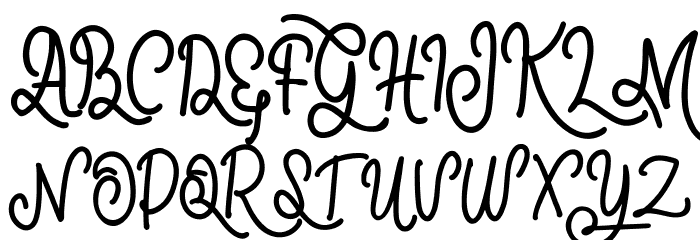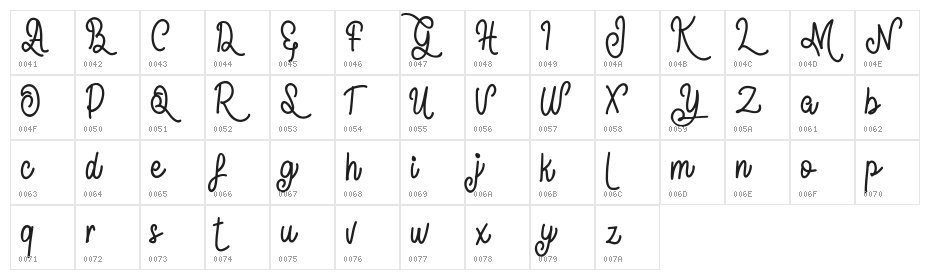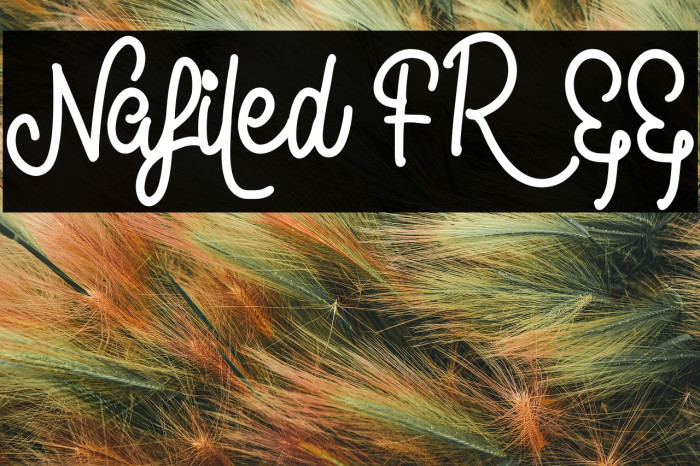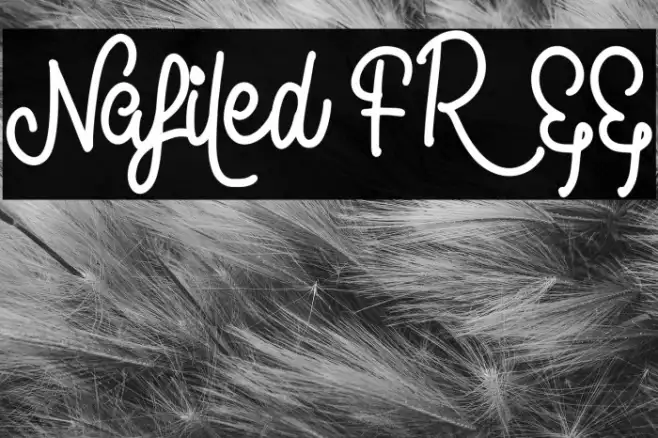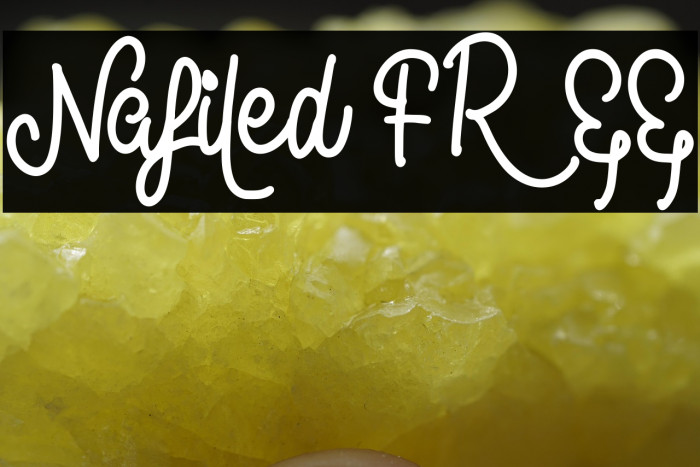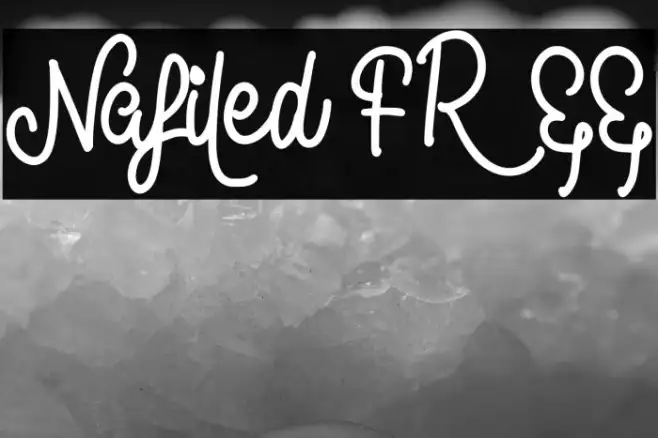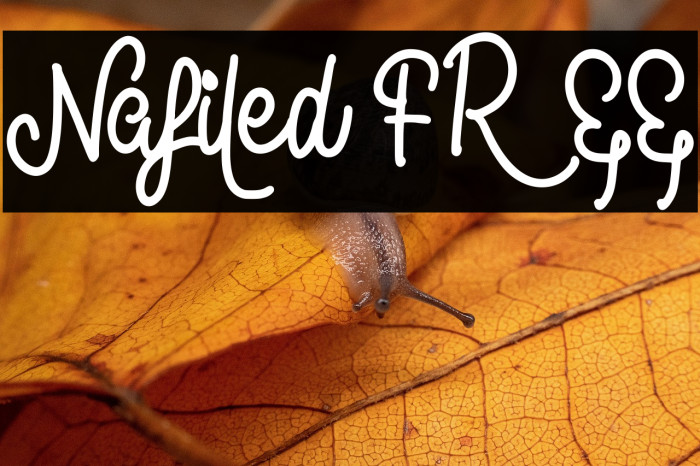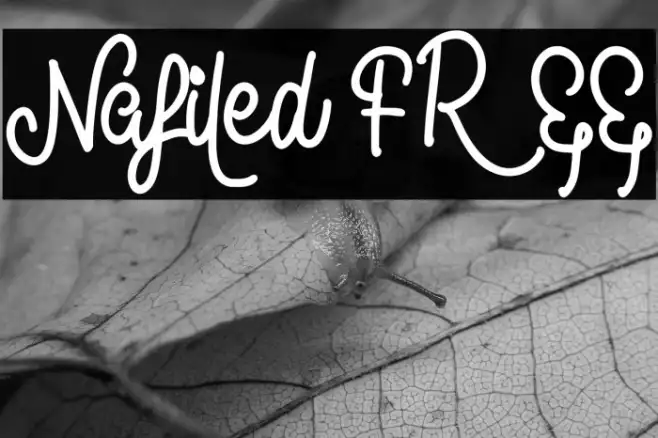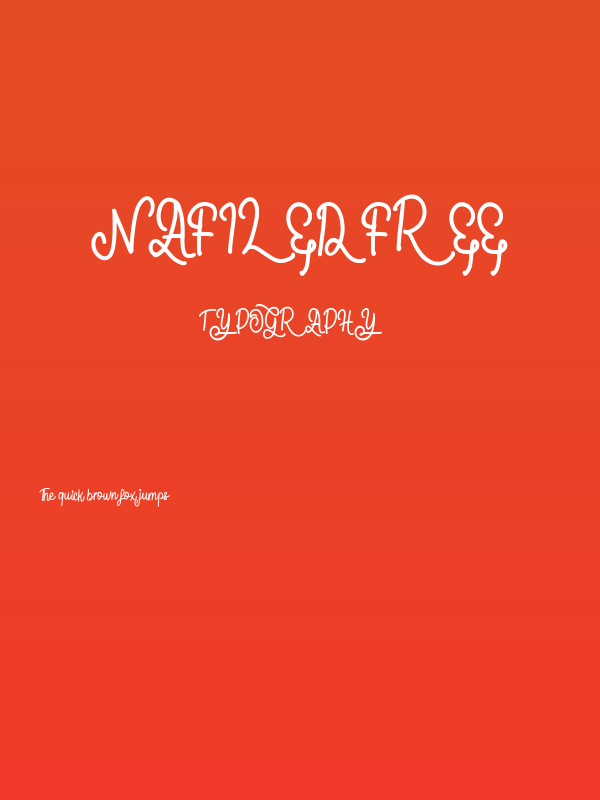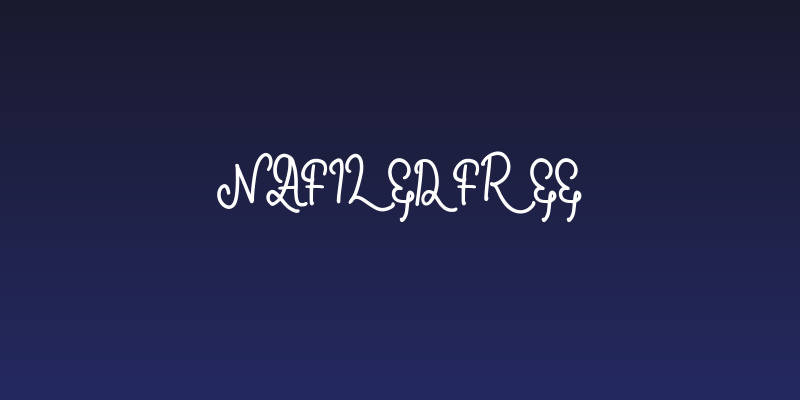
Nafiled FREE Font
Nafiled FREE Description
This font features a playful and whimsical script style with a hand-drawn appearance. The letters are interconnected with flowing curves and loops, giving it a lively and dynamic feel. The uppercase and lowercase characters maintain a consistent style, with the uppercase letters being slightly more ornate. The font has a casual and friendly vibe, making it suitable for creative and informal projects. Its unique character shapes and decorative elements make it stand out, while still being legible. The overall design is cohesive, with a balance between the bold strokes and the airy spaces within the letters.
| Use Case | Logos, Invitations, Greeting cards |
| Proposed Projects | Ideal for greeting cards, invitations, logos, and creative branding projects. |